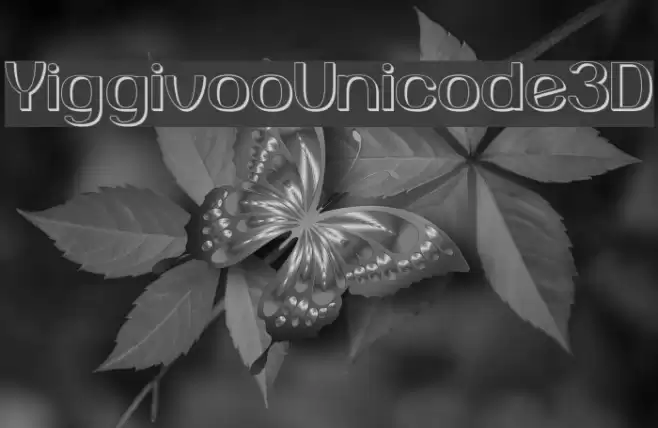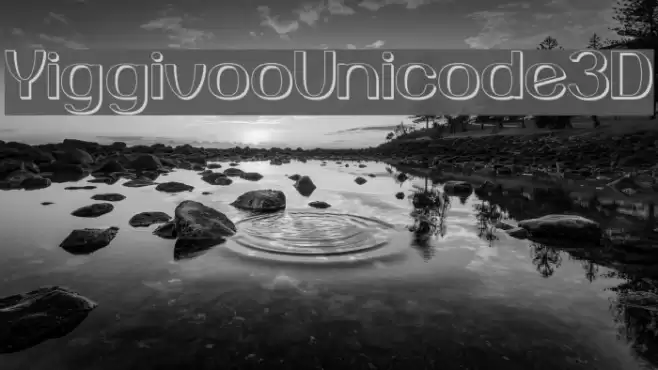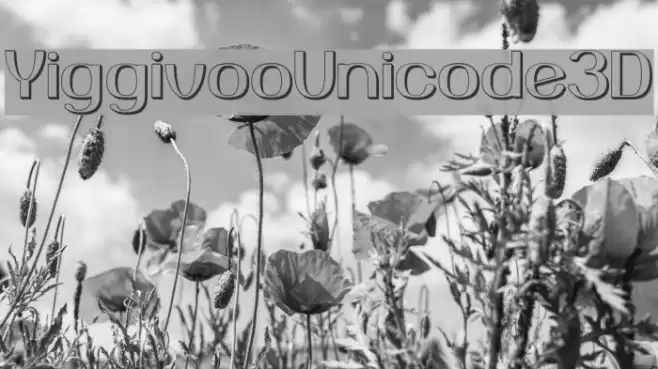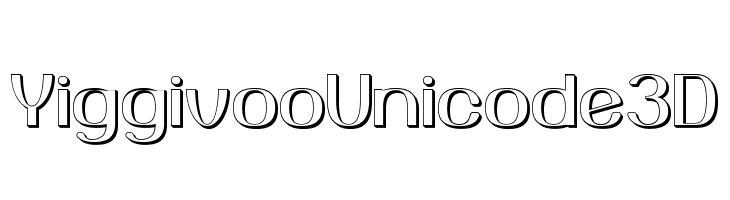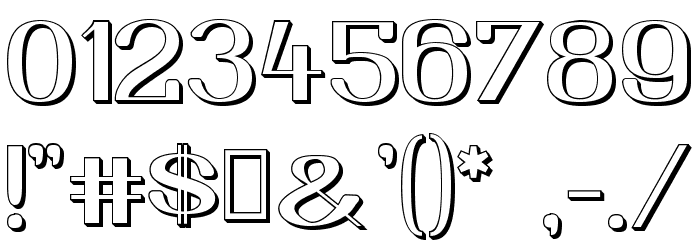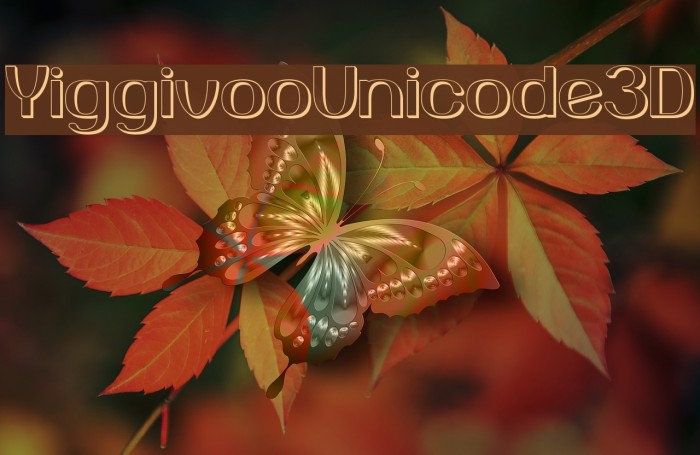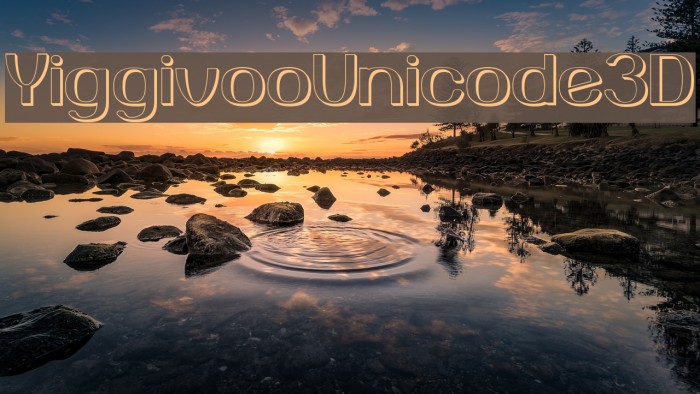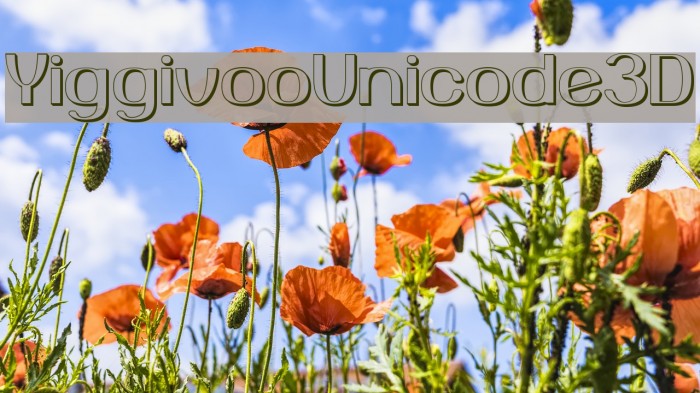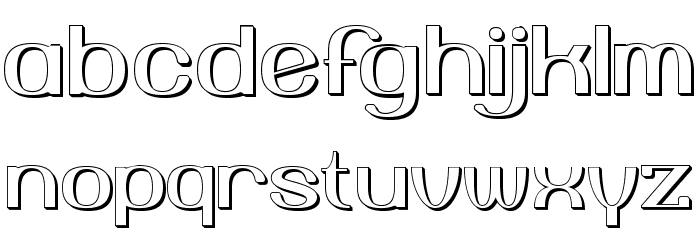
YiggivooUnicode3D Font
YiggivooUnicode3D Description
This font features a unique 3D outline style, giving each character a bold and dimensional appearance. The uppercase and lowercase letters maintain a consistent geometric structure, with clean lines and rounded edges. The numbers and special characters follow the same design principles, ensuring uniformity across all glyphs. This font's open and airy design makes it stand out, while still being legible and versatile for various applications. The spacing between characters is balanced, providing a harmonious flow in text. Its modern and playful aesthetic makes it suitable for creative projects.
A 3D outline font with a modern, geometric style and balanced spacing from Uncategorized fonts.